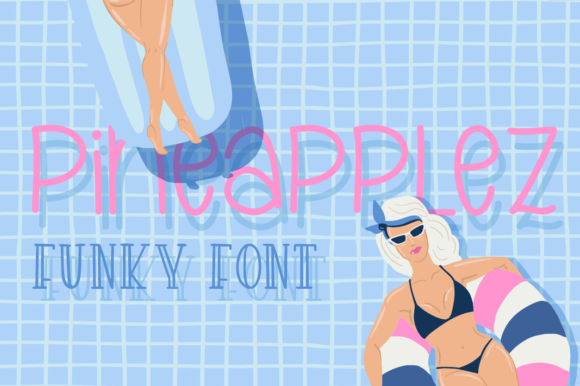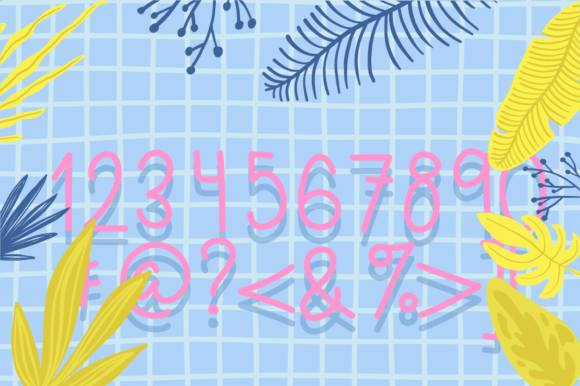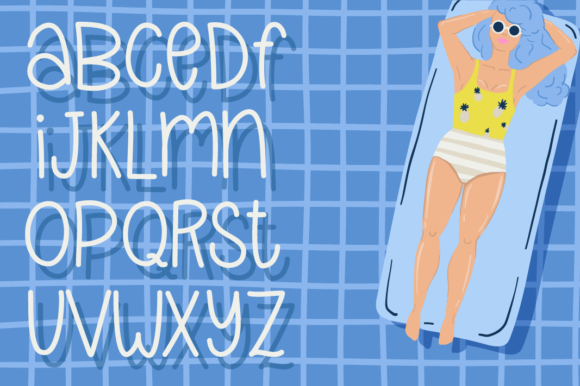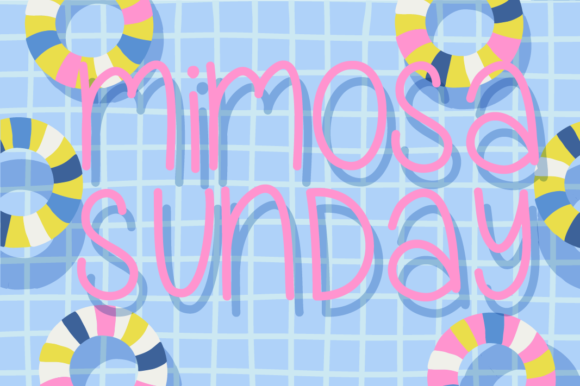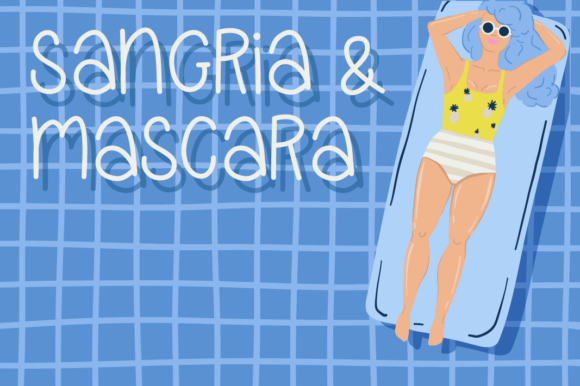
Pineapplez Font
About Pineapplez Font
PineapplezĀ is a cute and simple lettered handwritten font that can be used for all chalkboard quotes or teaching material! Its authentic look will add a personal and realistic feel to your designs.